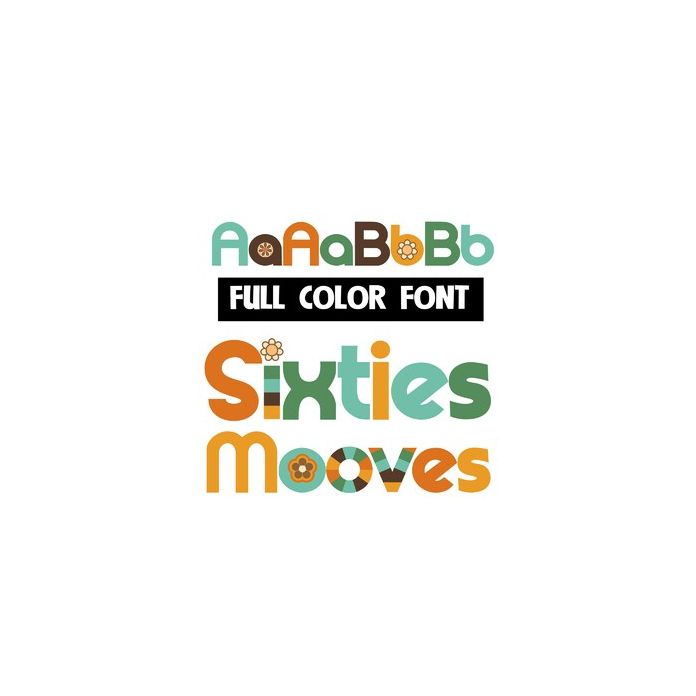
This full-color font features retro colors and flowers throughout. There is a second version of each upper and lowercase letter in a different color available through Silhouette's glyph map.